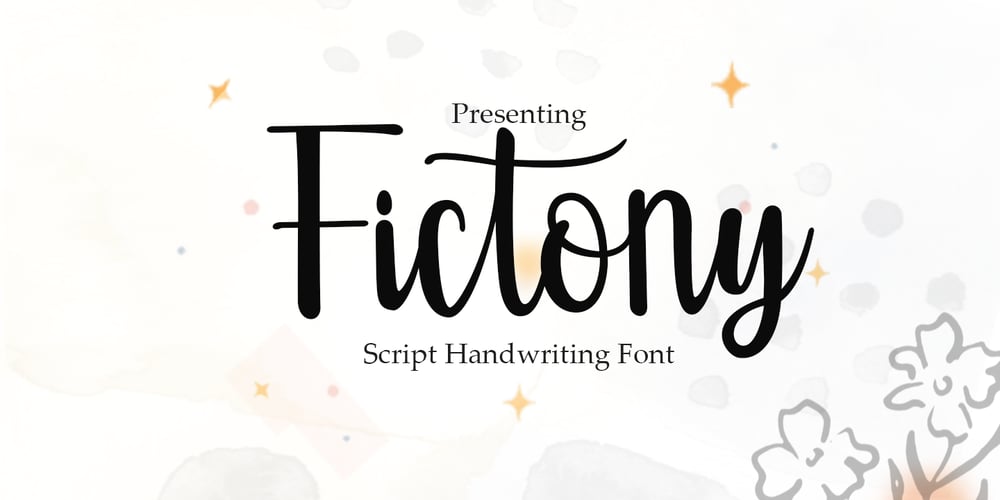
Fictony Font Family was designed by khaidir and published by Gatype. Fictony contains 1 styles and family package options. Fictony is an elegant script with a creative mood and perfect form, inspired by today’s beautiful calligraphy. thick, balanced and varied, born for luxury and beauty.In my example I show how this script can be used. It’s great for logotypes, branding, wedding invitations, romantic cards, alcohol labels, packaging, name spelling and more.Fictony comes with beautiful uppercase and lowercase letters, numbers, and punctuation. In addition to the main character set, there are many alternative characters, early and late sweeps. You also get 4 font variations regular, outline, italic, distort which harmoniously complement the original text.Features:Fictony . OffThe Style Alternative Ligature works on the principle of simple combinations with the Standard Binding option enabled in the Opentype panel (Adobe Photoshop, Adobe Illustrator).Enjoy!